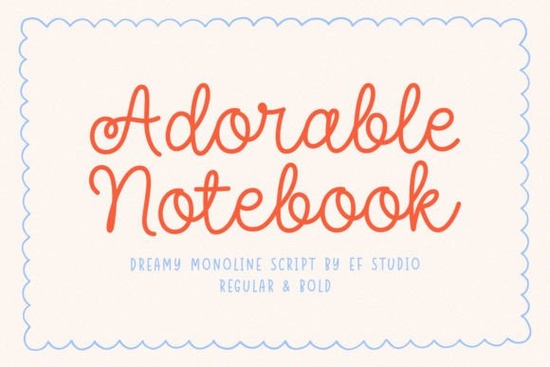
If you’ve ever wanted your digital designs to feel like they were written by hand with warmth, personality, and a little bit of whimsy you’ll appreciate the Adorable Notebook Font. This playful handwritten script mimics the natural rhythm of real pen-on-paper writing, complete with soft curves and rounded edges that give it a gentle, friendly vibe. It’s especially well-suited for greeting cards, personal journals, wedding invitations, or any project where you want to add a human touch without looking overly polished.
Unlike stiff or overly stylized fonts, Adorable Notebook feels approachable. The letterforms connect naturally, just like casual handwriting, which makes it ideal for crafters who create printable planners, small business owners designing custom packaging, or print-on-demand sellers looking for something fresh but familiar. And because it’s legible at both large and small sizes, it works just as well on a gift tag as it does on a poster.
What kinds of projects work best with this font?
You’ll find Adorable Notebook shines in contexts that call for sincerity and charm:
- Handmade-style greeting cards – Pair it with watercolor backgrounds or kraft paper textures for an authentic DIY feel.
- Personalized journals or notebooks – Use it for cover titles or section headers to make stationery feel uniquely yours.
- Wedding or baby shower invitations – Its soft curves complement floral motifs and pastel palettes beautifully.
- Print-on-demand products – Think mugs, tote bags, or wall art featuring short quotes or affirmations.
How does it compare to other script fonts?
Many script fonts prioritize flair over function, ending up too ornate for everyday use. Adorable Notebook strikes a balance: it’s expressive but not distracting. Compare it to something like Summertime Sadness Font, which has more dramatic swashes and is better suited for headlines or artistic statements. Adorable Notebook, by contrast, reads easily in body text or short phrases ideal when clarity matters as much as character.
Another point in its favor: versatility across themes. While fonts like Lovely Valentine Duo are seasonally specific, Adorable Notebook adapts effortlessly to birthdays, holidays, or everyday notes. Similarly, the Gather of Good Font shares its inviting tone but uses slightly more structured letterforms making Adorable Notebook the softer, more spontaneous choice.
Tips for using Adorable Notebook effectively
To get the most out of this font, keep these practical ideas in mind:
- Avoid all caps. Like most scripts, it’s designed to flow in lowercase or sentence case. Uppercase letters can break the natural rhythm.
- Pair it with a clean sans-serif. Fonts like Montserrat or Lato provide visual breathing room and improve readability in mixed layouts.
- Use generous spacing. Slightly increased letter-spacing (tracking) helps maintain legibility, especially at smaller sizes.
- Limit line length. Keep lines under 50 characters for optimal flow this font works best in short bursts, not dense paragraphs.
Does your project need a font that feels personal, not perfect? If yes, Adorable Notebook is likely a great fit. But if you’re aiming for high elegance (think formal calligraphy) or bold street-style energy, another script might serve you better.